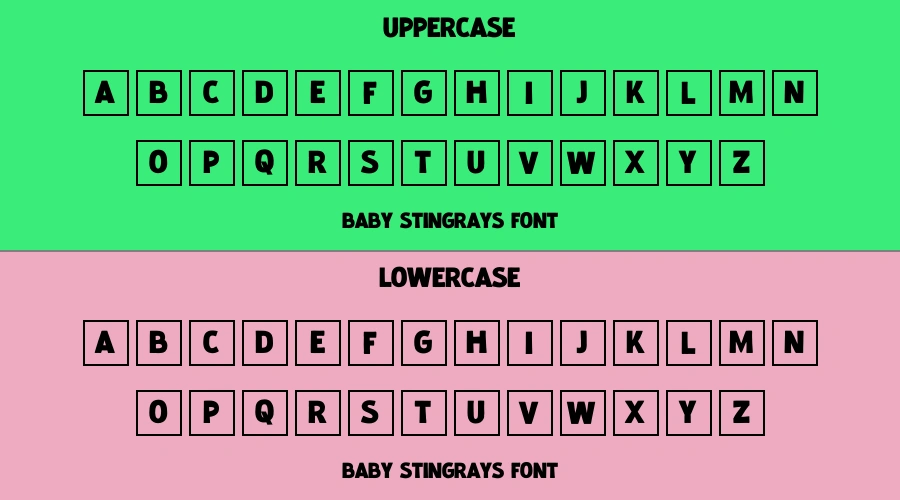
About Baby Stingrays Font
Baby Stingrays Font stands out for its distinctive combination of dramatic weight and versatility. Ideal for brand identities, it provides the clarity and design innovation that professional projects demand. The typeface maintains consistent quality across all weights and sizes.
Key features include refined contextual swashes and practical contextual alternates, enhancing typographic expression. In artistic statements applications, Baby Stingrays Font demonstrates exceptional detail preservation. The spur details and technical authority contribute to its distinctive character and professional appeal.